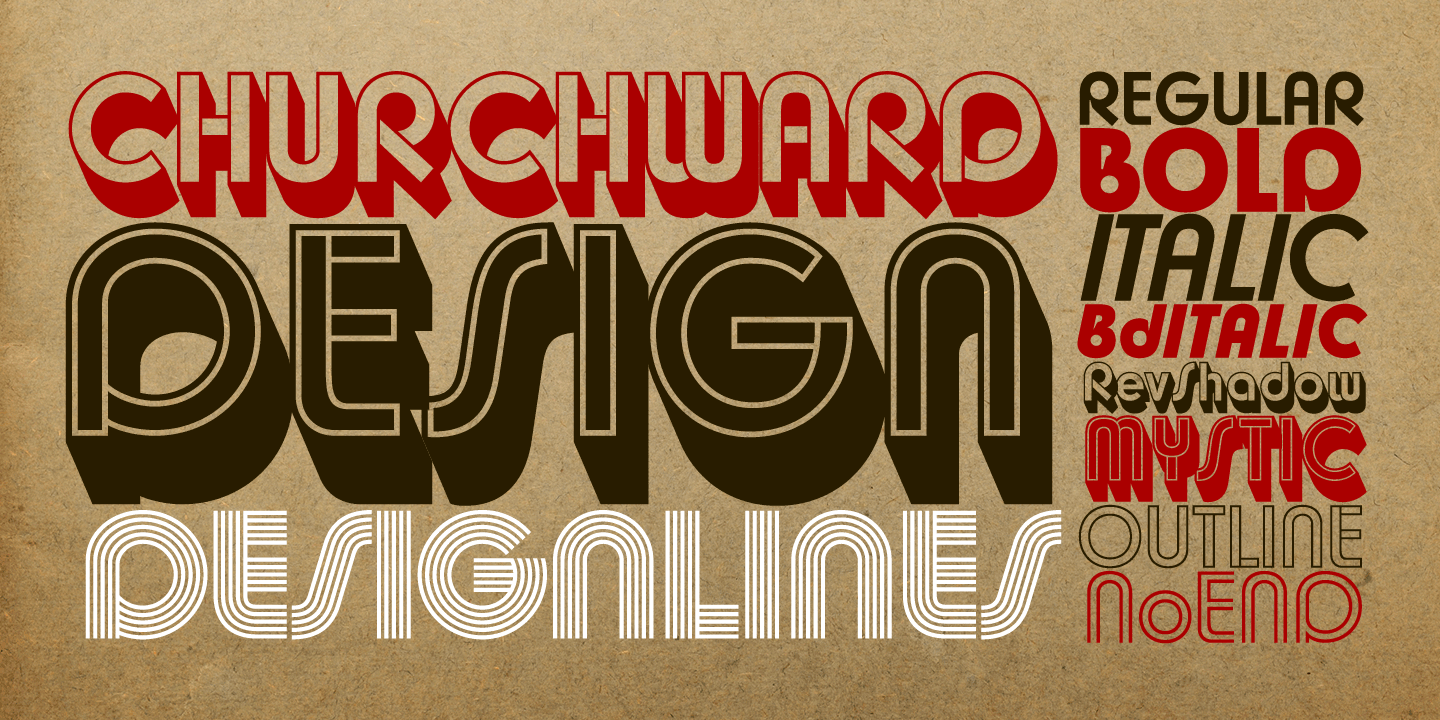
This distinctive typeface is an excellent choice for projects that demand a blend of modern simplicity, geometric precision, and often a unique, almost architectural clarity. Imagine it defining the branding of innovative design studios, providing crisp legibility for technical manuals, or adding a sophisticated, minimalist edge to contemporary corporate communications. Churchward Design Font is also perfectly suited for designing streamlined user interfaces, crafting precise logos for tech startups, or creating impactful headlines for industrial design magazines. Its often clean lines, consistent stroke widths, and balanced letterforms make it an ideal option for any design seeking to convey efficiency, modernity, and a no-nonsense, functional aesthetic, such as engineering blueprints, data visualization charts, or smart product packaging.
What makes Churchward Design Font so exciting? It embodies a philosophy of functional beauty, often characterized by its straightforward construction and a harmonious rhythm that prioritizes readability and clarity. This font doesn’t just convey text; it structures it with an inherent sense of order and logical design. It's engineered to perform exceptionally well across various applications, from large display text to detailed technical specifications, ensuring your message is always communicated effectively and without ambiguity. The inherent clarity and adaptable nature of its character shapes make it particularly effective for brands that champion innovation, precision, and a universally appealing, contemporary identity. Its clean aesthetic can evoke a sense of thoughtful engineering and streamlined processes, making it a favorite for design-focused and industrial enterprises.
The Churchward Design Font family typically offers a comprehensive range of weights and styles, providing extensive flexibility for designers to build sophisticated and consistent typographic systems. You can expect to find a broad spectrum of options, including Light, Regular, Medium, Bold, and often an Extra Bold or Black weight, along with corresponding italic versions. Each weight is meticulously designed to maintain the font's core characteristics while offering distinct visual impacts, allowing for a precise and nuanced typographic hierarchy. These variations enable designers to create well-structured and highly functional text layouts, effectively differentiating between headlines, subheadings, and body text with elegance and precision. The extensive family ensures that Churchward Design Font can be the singular typeface for an entire brand system, guaranteeing visual consistency and a polished, professional appearance across all mediums.
Whether you're developing a cutting-edge software application, building a new corporate identity, or simply need a typeface that speaks with authority and modern elegance, Churchward Design Font Free Download is an outstanding choice. Its refined design and broad versatility will ensure your message is always delivered with utmost clarity and sophisticated purpose.